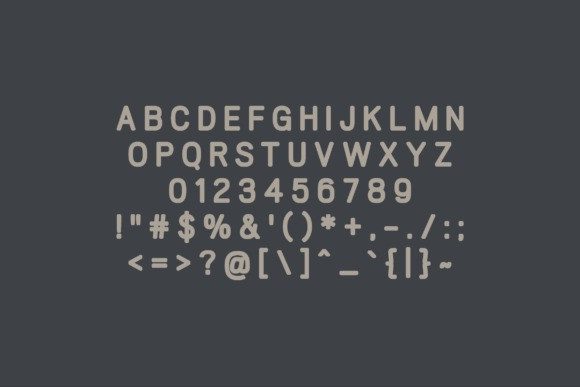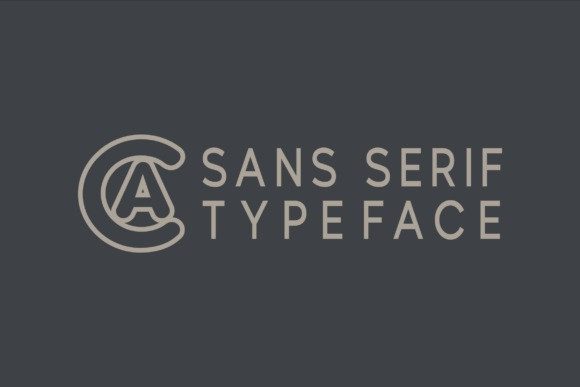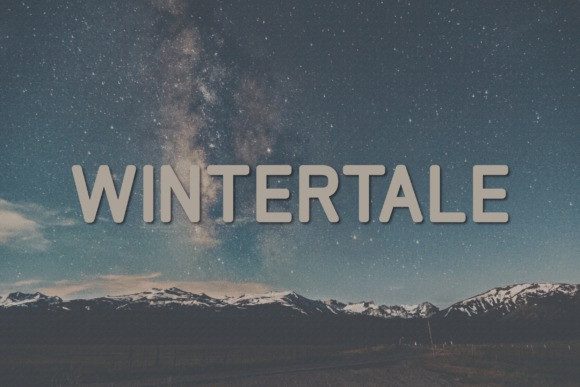
Wintertale Font
Wintertale Font is a clean, contemporary sans-serif font with a subtle warmth that makes it feel both modern and inviting.Inspired by the quiet elegance of winter landscapes, this font features rounded corners, consistent stroke width, and a balanced letter structure that ensures excellent readability across all media. It includes uppercase letters, numerals, and punctuation—making it highly versatile for branding, packaging, editorial layouts, and web design.
Wintertale’s soft, neutral aesthetic works beautifully for minimalist design themes, wellness branding, seasonal marketing, or even sci-fi and storytelling projects. Its straightforward yet stylish character allows it to stand on its own or complement other typefaces cleanly and cohesively. Let Wintertale bring clarity and calm to your creative work.